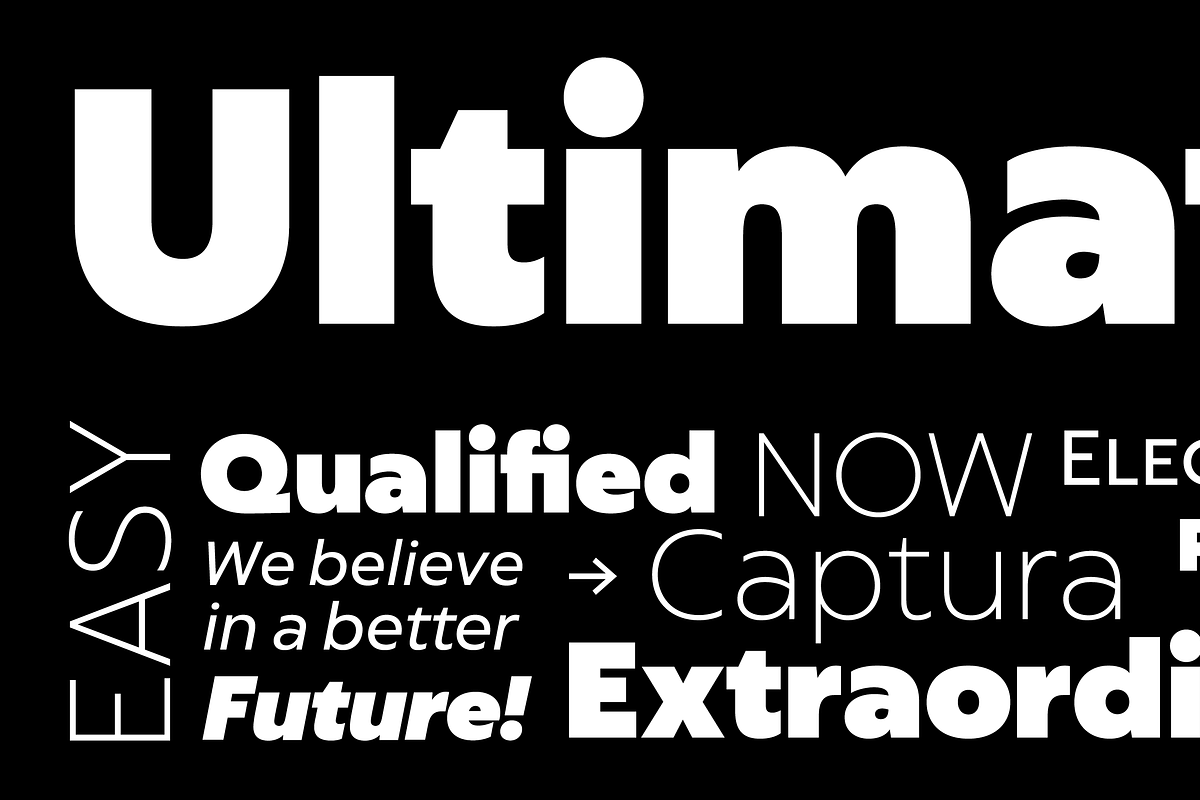
Captura Now Geometric Sans Serif
Captura Now supports you create your next award-winning typographic experience.
Carefully refined shapes and sensitively balanced spacing and kerning create the gentle rythm that grants Captura Now its warm-hearted face, perfect in form and shape. Expanded with an enormous character set, Captura Now offers the freedom to transform your design into the Cyrillic-language world, as well as into any Latin based language — including Vietnamese.
Numerous OpenType-features such as stylistic alternates, small caps, circled arrows, slashed zero and many more, have been implemented to simplify your work process.
Open Type Features: Access All Alternates, Localized Forms, Subscript, Scientific Inferiors, Superscript, Numerators, Denominators, Fractions, Ordinals, Proportional Figures, Tabular Figures, Small Capitals From Capitals, Small Capitals, Ligatures, Slashed Zero, Stylistic Alternates
Captura Now supports 256 Languages — extended Latin incl. Vietnamese; Cyrillic incl. local forms: Abaza, Abenaki, Adyghe, Afaan Oromo, Afar, Afrikaans, Agul, Albanian, Alsatian, Amis, Anuta, Aragonese, Aranese, Aromanian, Arrernte, Arvanitic (Latin), Asturian, Atayal, Avar, Aymara, Azerbaijani, Balkar, Bashkir (Latin), Basque, Belarusian (Latin + Cyrillic), Bemba, Bikol, Bislama, Bosnian, Breton, Bulgarian, Buryat, Cape Verdean Creole, Catalan, Cebuano, Chamorro, Chavacano, Chechen, Chichewa, Chickasaw, Chukchi, Chuvash, Cimbrian, Cofán, Cornish, Corsican, Creek, Crimean Tatar (Latin + Cyrillic), Croatian, Czech, Danish, Dargin, Dawan, Delaware, Dholuo, Drehu, Dungan, Dutch, English, Erzya, Esperanto, Estonian, Faroese, Fijian, Filipino, Finnish, Folkspraak, French, Frisian, Friulian, Gagauz (Latin), Galician, Ganda, Genoese, German, Gikuyu, Gooniyandi, Greenlandic (Kalaallisut), Guadeloupean Creole, Gwich’in, Haitian Creole, Hän, Hawaiian, Hiligaynon, Hopi, Hotcąk (Latin), Hungarian, Icelandic, Ido, Igbo, Ilocano, Indonesian, Ingush, Interglossa, Interlingua, Irish, Istro-Romanian, Italian, Jamaican, Javanese (Latin), Jèrriais, Kabardian, Kaingang, Kala Lagaw Ya, Kalmyk, Karachay, Kapampangan (Latin), Kaqchikel, Karakalpak (Latin + Cyrillic), Karelian (Latin), Kashubian, Kazakh, Khinalugh, Kikongo, Kinyarwanda, Kiribati, Kirundi, Klingon, Komi, Kumyk, Kurdish (Latin), Kyrgyz, Ladin, Lak, Latin, Latino sine Flexione, Latvian, Lezgian, Lithuanian, Lojban, Lombard, Low Saxon, Luxembourgish, Maasai, Macedonian, Makhuwa, Malay, Maltese, Manx, Māori, Marquesan, Megleno-Romanian, Meriam Mir, Mirandese, Mohawk, Moksha, Moldovan, Mongolian, Montagnais, Montenegrin, Murrinh-Patha, Nagamese Creole, Nahuatl, Ndebele, Nanai, Neapolitan, Ngiyambaa, Niuean, Nogai, Noongar, Norwegian, Novial, Occidental, Occitan, Old Icelandic, Old Norse, Onĕipŏt, Oshiwambo, Ossetian (Latin), Palauan, Papiamento, Piedmontese, Polish, Portuguese, Potawatomi, Q’eqchi’, Quechua, Rarotongan, Romanian, Romansh, Rotokas, Russian, Rusyn, Rutul, Sami (Inari Sami), Sami (Lule Sami), Sami (Northern Sami), Sami (Southern Sami), Samoan, Sango, Saramaccan, Sardinian, Scottish Gaelic, Serbian (Latin + Cyrillic), Seri, Seychellois Creole, Shawnee, Shona, Sicilian, Silesian, Slovak, Slovenian, Slovio (Latin), Somali, Sorbian (Lower Sorbian), Sorbian (Upper Sorbian), Sotho (Northern), Sotho (Southern), Spanish, Sranan, Sundanese (Latin), Swahili, Swazi, Swedish, Tabasaran, Tagalog, Tahitian, Tajik, Tat, Tatar, Tetum, Tok Pisin, Tokelauan, Tongan, Tshiluba, Tsonga, Tswana, Tumbuka, Turkish, Turkmen (Latin+Cyrillic), Tuvaluan, Tzotzil, Uighur, Ukrainian, Uzbek (Latin + Cyrillic), Venetian, Vepsian, Volapük, Võro, Wallisian, Walloon, Waray-Waray, Warlpiri, Wayuu, Welsh, Wik-Mungkan, Wiradjuri, Wolof, Xavante, Xhosa, Yapese, Yindjibarndi, Zapotec, Zarma, Zazaki, Zulu, Zuni